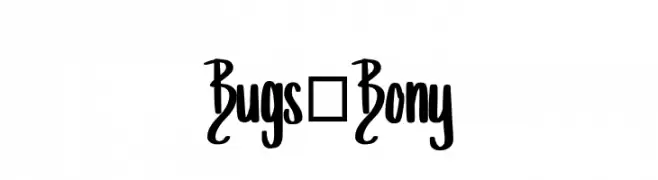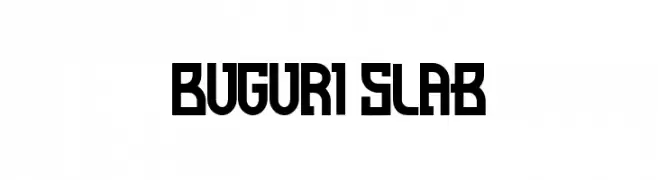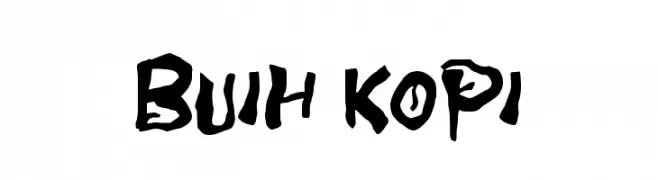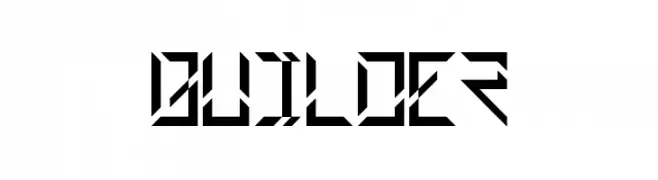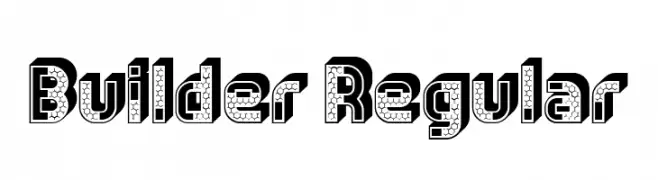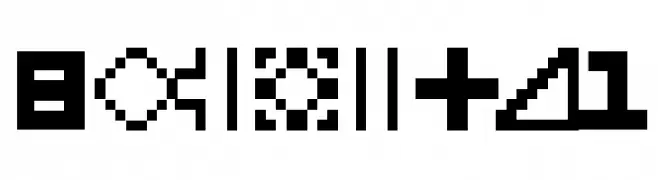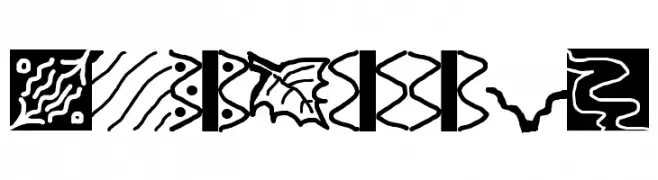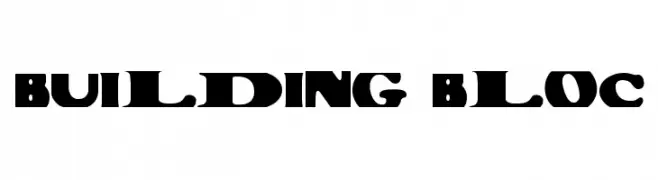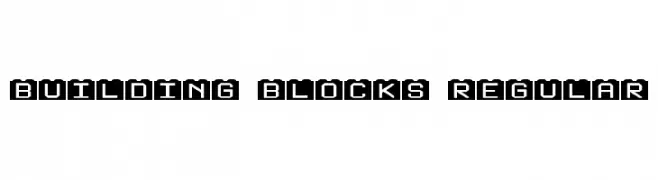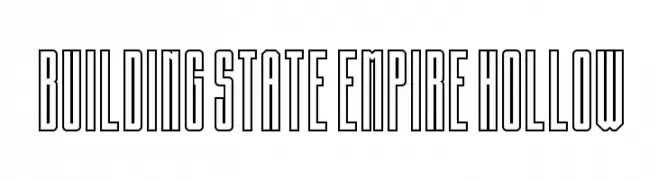
A playful, handwritten font with exaggerated curves and a whimsical style.
A playful, hand-drawn style font with rounded, irregular letterforms.
A playful and whimsical font with rounded, slightly irregular letterforms.
A playful, handwritten font with a whimsical and artistic style.
A modern, geometric font with rounded edges and a futuristic style.
A bold, hand-drawn font with an expressive, graffiti-like style.
A bold, decorative font with a geometric hexagonal pattern and strong outlines.
A bold, geometric font with a blocky, modular design.
A tall, narrow, and geometric font with a modern aesthetic.
A bold, geometric font with a hollow outline, perfect for modern designs.
A display font styled as architectural buildings with a modern, urban feel.
A font where each character is designed as a building, featuring architectural elements.
An ultra-condensed, elongated font with thin strokes and a modern aesthetic.
A tall, narrow, and modern font with clean lines and a structured appearance.
A bold, modern sans-serif font with tall, narrow characters.
A bold, geometric font with strong, uniform strokes for impactful headlines.
A geometric, grid-patterned font with a modern, pixelated style.
A playful, casual handwritten font with uneven strokes and an organic flow.
A bold, decorative font with a vintage and ornate style.
A playful, bold, hand-drawn font with a friendly and whimsical style.
A bold, playful font with a whimsical, hand-drawn style.
A lively, handwritten script font with a modern and expressive style.
A bold, geometric font with a three-dimensional effect and angular design.
A modern, monospaced font with a digital dot pattern.